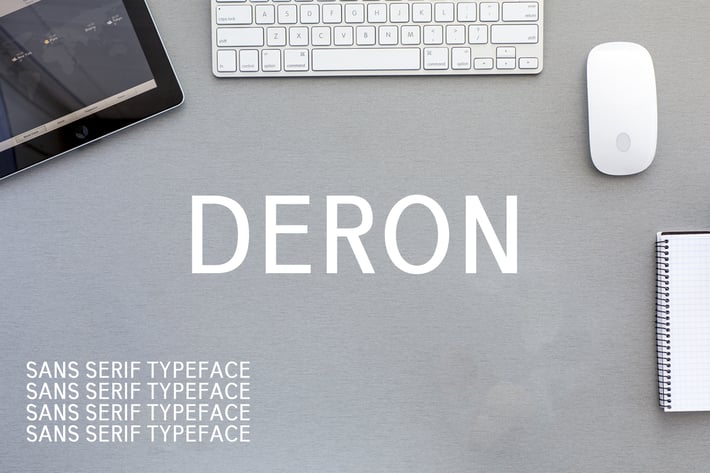
Deron Sans Serif Font Family Pack
Deron is a geometric sans font which offers 10 high quality font. It’s a unique and modern sans font pack, which is well suited for a variety of typographic applications such as branding, banners, templates, catalog, modern, fashion, magazine, quotes, short phrases, logotypes, headlines and even small texts, and many more.
- Regular, Thin, Light, Outline, Bold, Black and Italic Weights
Deron Font Features:
- Uppercase Multilingual Letters
- Lowercase Multilingual Letters
- Non English Characters ( Latin Supplement + Latin Extended A)